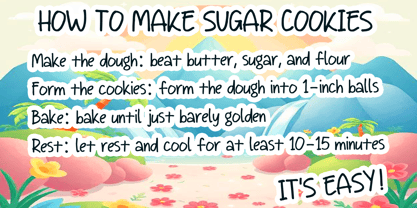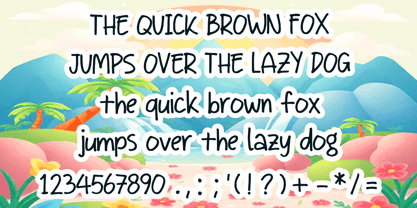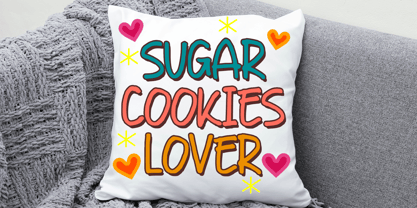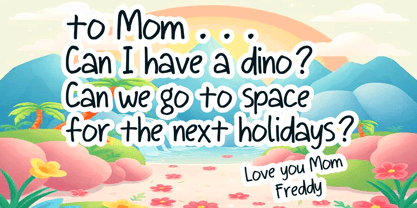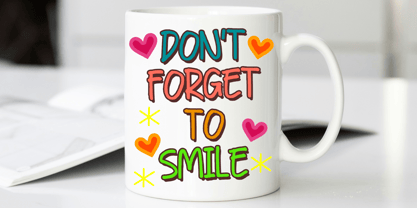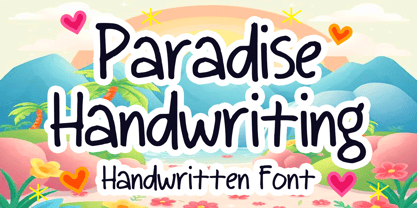
Paradise Handwriting
by Mvmet
The Paradise Handwriting Font Family was designed by Gabriel Valentinus and published by Mvmet. Paradise Handwriting contains 1 styles. More about this family
Immerse yourself in the artistic bliss of Paradise Handwriting, an irresistibly attractive, thin-styled handwritten font. This font brims with joy and radiates a welcoming aura with every curve and stroke. Perfect for a multitude of design projects, Paradise Handwriting elevates every creation to new heights of excellence. Utilize this font for a variety of design explorations, including vibrant stickers, innovative t-shirt graphics, captivating logo designs, dynamic magazine covers, and intriguing comic or cartoon depictions. Even daily typing takes on a new vibrancy with this font in your toolkit. Paradise Handwriting is not just an addition; it is a transformative touch that infuses your designs with exceptional coolness and personality, making it ideal for branding, web design, and editorial projects.
Designers: Gabriel Valentinus
Foundry: Mvmet